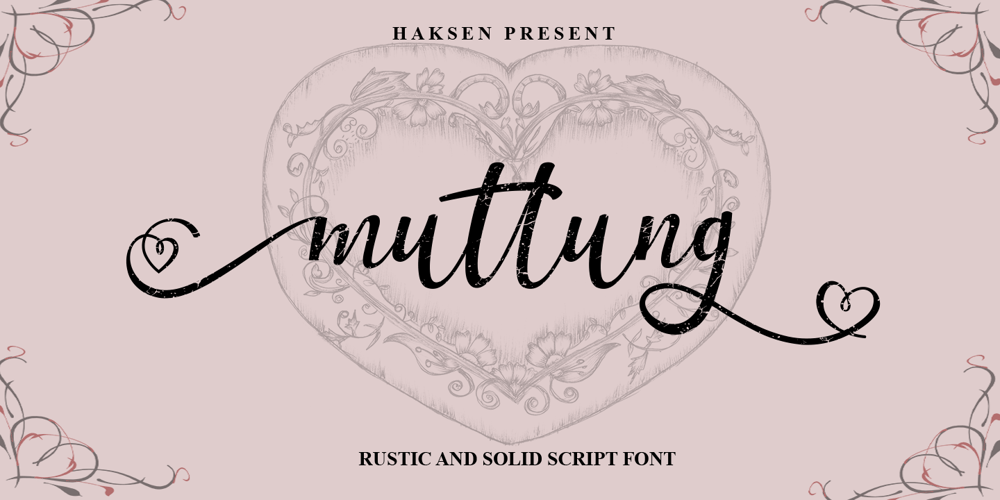
Muttung Font Family was designed by Sarwo Edhi Prayitno and published by Haksen. Muttung contains 2 styles and family package options. Dear Font Lovers,I really glad to inform You and of course introduce my New Collection Font with the name “Muttung””Muttung” is beauty font script with more than 40 glyps of alternate to provide beauty types.In this chance I would like to give You 2 variations of this font, what’s the variation? You will get : Muttung Solid Muttung with Rustic effect What’s the different of couple these font?Muttung Solid is designed for anything brand with beauty type in many alternate to provide your requirement.Muttung with Rustic effect is designed for beauty type with vintage sensation but still looks beautiful.With these fonts I’m hope You will get satisfaction for everything of Your projects or anything for You works.These fonts are support with many software such as : Adobe Photoshop CC, Adobe illustrator CC, Coreldraw, also many more.Finally, I hope with these fonts You will get everything your requirement and get satisfaction.Thanks for Your visit and attention.Success is always for You.Best Regards,Haksen